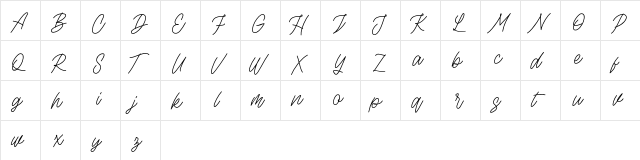
Rottordam Thin FREE Regular
Design Context for Rottordam Thin FREE Typeface
Rottordam Thin FREE is a composed and adaptable typeface that performs quietly and consistently across a wide range of design contexts. Its slender proportions lend an understated elegance to any composition.